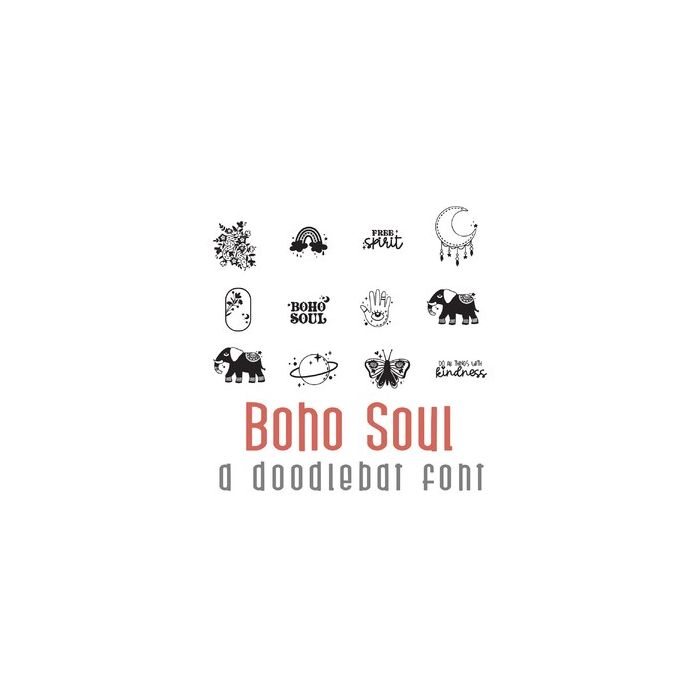
Boho Soul Doodlebat Font
This fun doodlebat font features 26 boho style images perfect for cards, crafts, gifts, decor, planner stickers, scrap book pages and more!